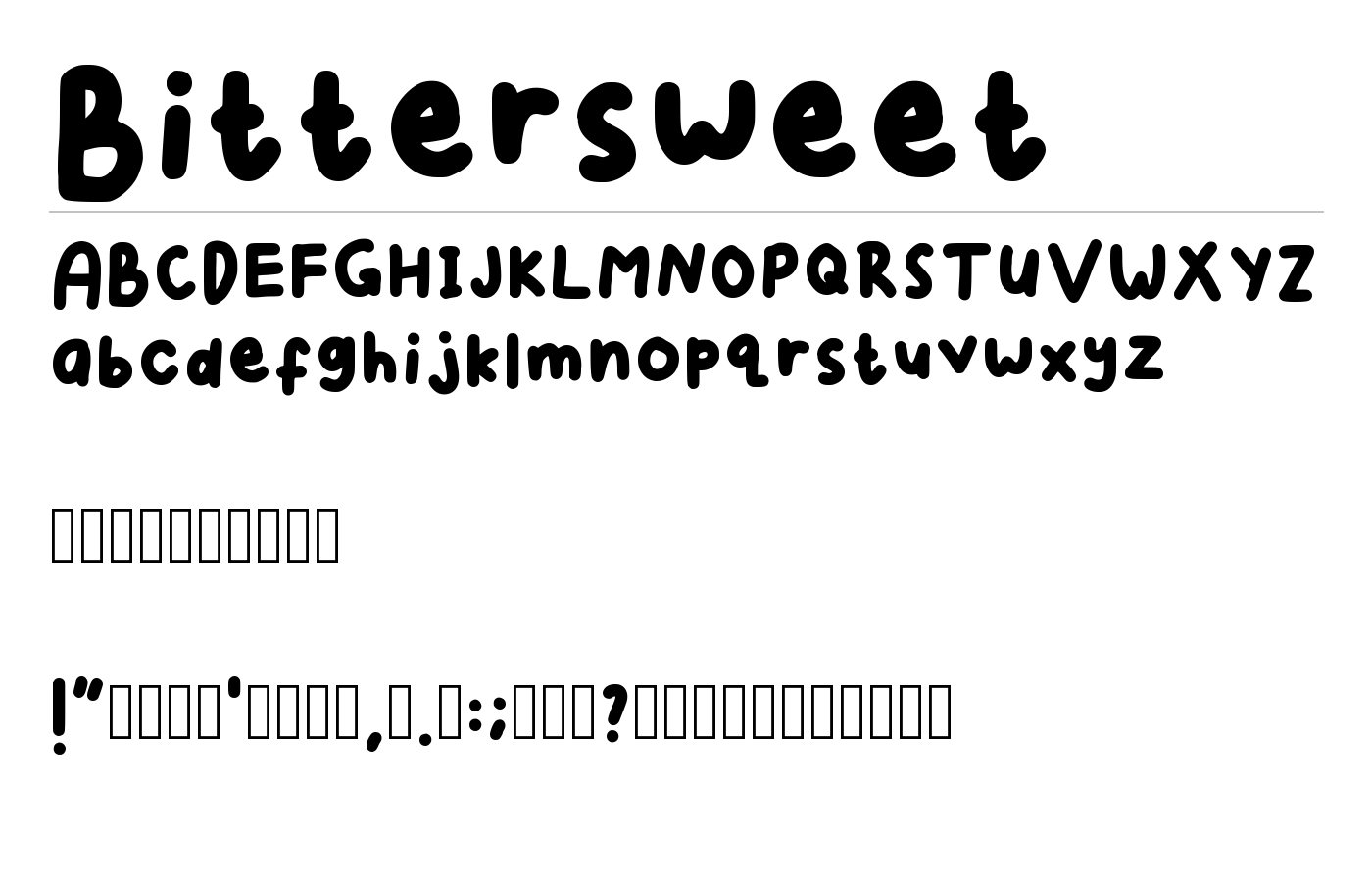
Bittersweet is a playful sans serif font with rounded, chunky letterforms that create a friendly and approachable vibe. Its casual, hand-drawn style makes it ideal for informal branding, children’s content, and creative projects that want to convey warmth and fun. With clear readability and lively personality, Bittersweet works well for headlines, logos, and packaging where a cheerful, inviting tone is desired.
Bittersweet Font
About Bittersweet Font